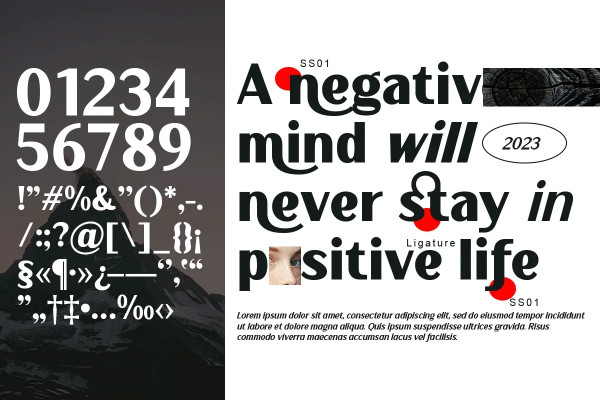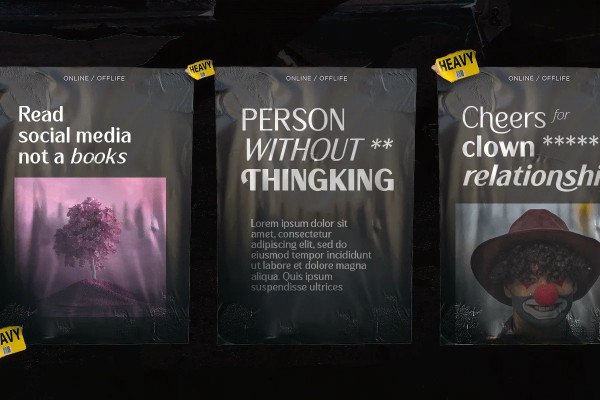
La Bisane Font
La Bisane Font is a cool display font. It is suitable for your word documents, editorial designs, packaging, web texts, and many other projects. This font is PUA encoded, which means you can access all of the glyphs and swashes with ease!